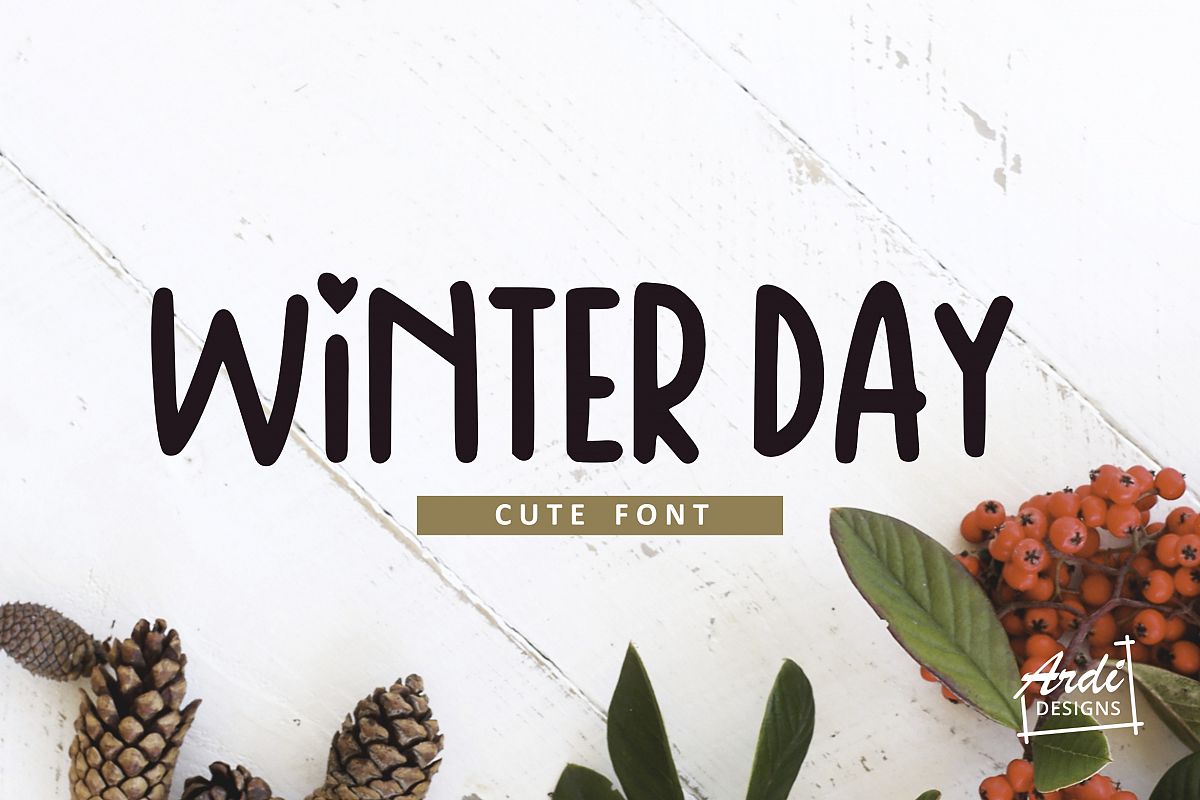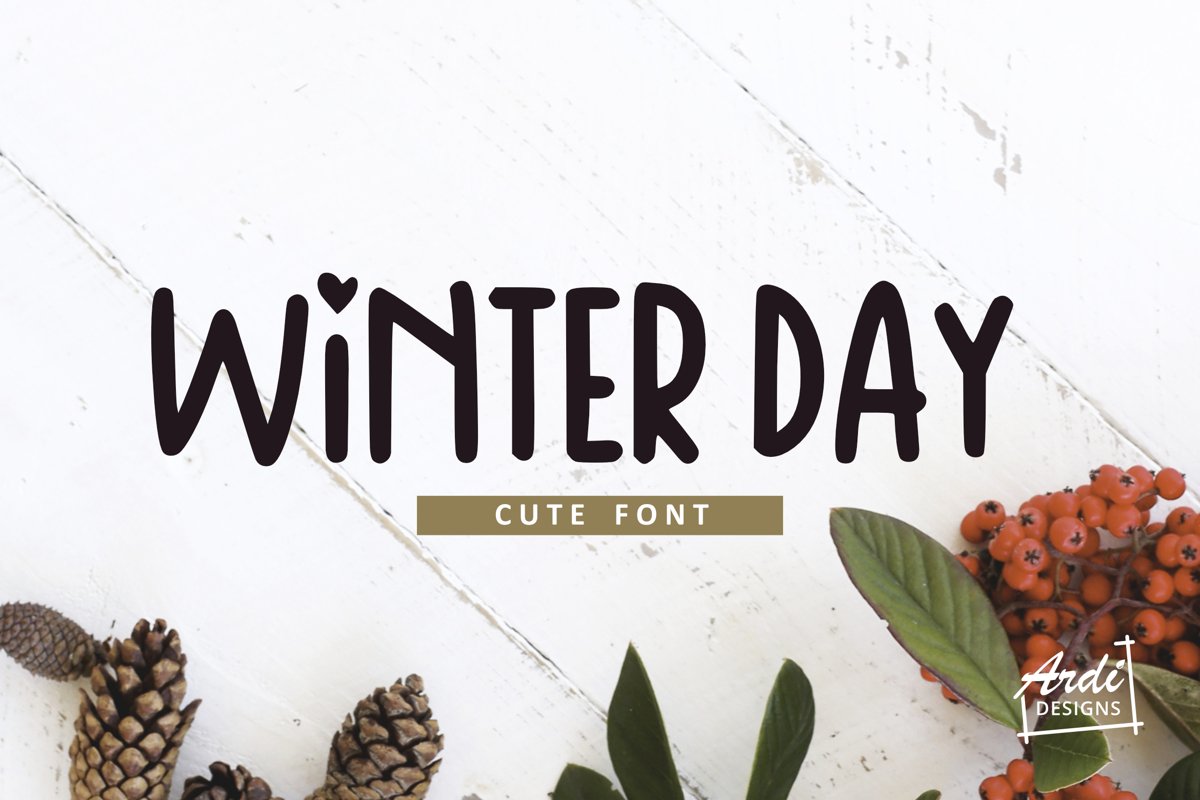
Created By ArdiDesigns
Winter Day Font
Winter Day Regular
Winter Day Font
Cute font , suitable for many project , quotes, logo , doodle, heading , title etc.